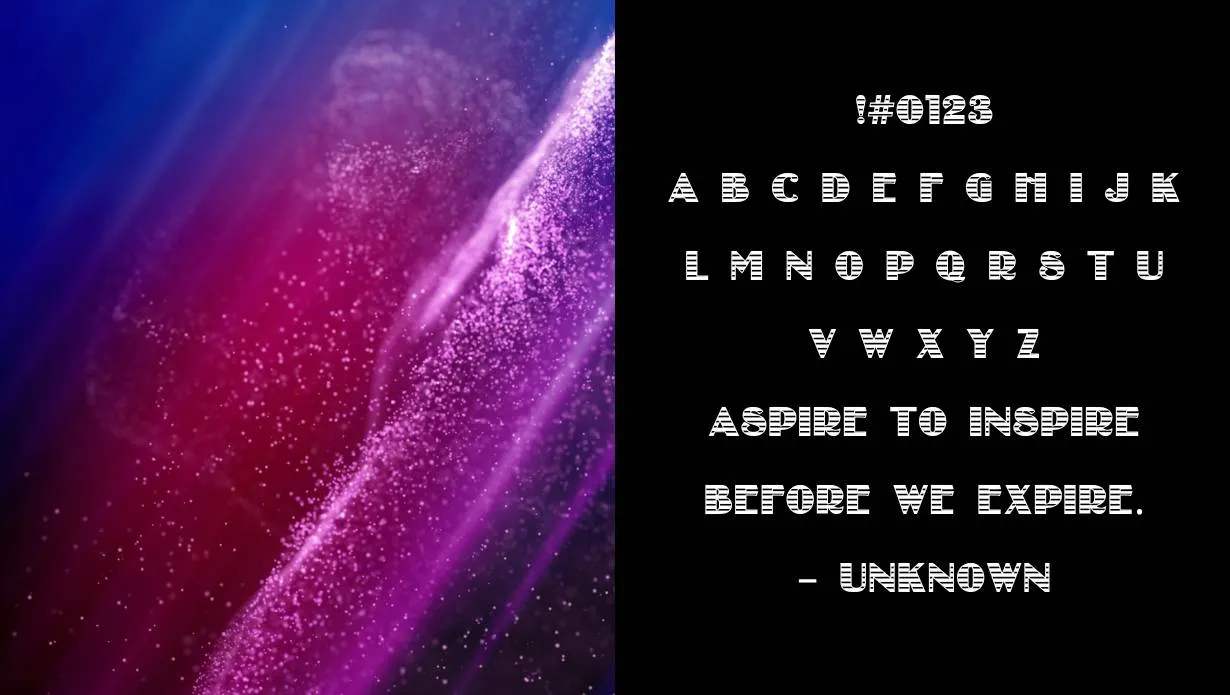
Kurtis Blow Font honors the legendary rapper Kurtis Blow with its strong and vibrant lettering. This typeface embodies the vitality and dynamism of hip-hop, making it perfect for projects connected to music, gatherings, or any design seeking to reflect an urban vibe.
| Name | Kurtis Blow Font |
| Designer | Jim Parkinson |
Kurtis Blow Font adds a touch of personality and rhythm to the typography, making it stand out with its distinctive style.